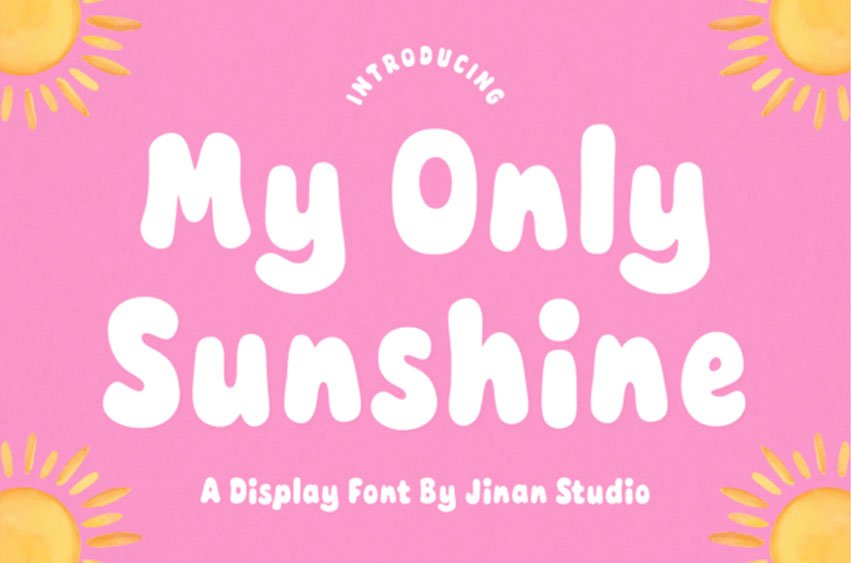
My Only Sunshine Font
My Only Sunshine Font is a cute and cheerful display font designed to bring warmth and happiness to your designs. With its soft, rounded shapes and playful character, this font creates a friendly and uplifting feel that instantly brightens any project.
Perfect for kids branding, summer-themed designs, posters, packaging, social media, and playful logos, this font adds a sweet and joyful touch wherever it’s used. Its bold yet gentle style makes it easy to read while still maintaining a fun and adorable personality.
Whether you’re creating designs for children, lifestyle brands, or anything that needs a sunny and positive vibe, My Only Sunshine is the perfect choice to make your work feel lively, warm, and full of charm.